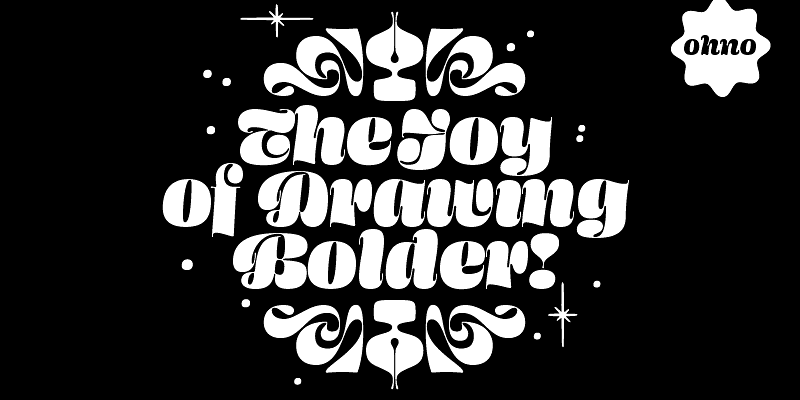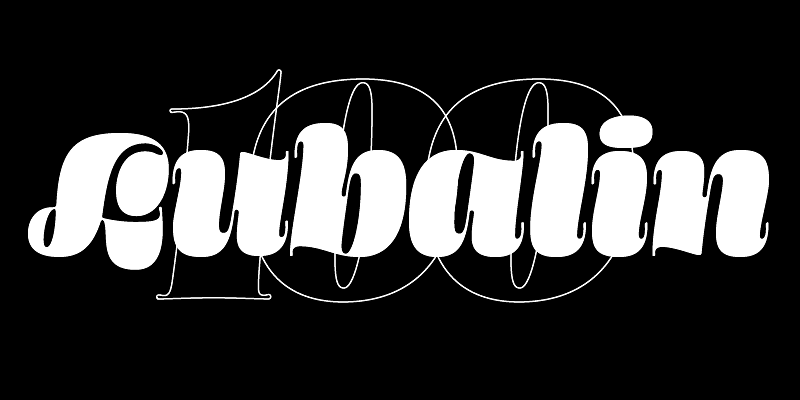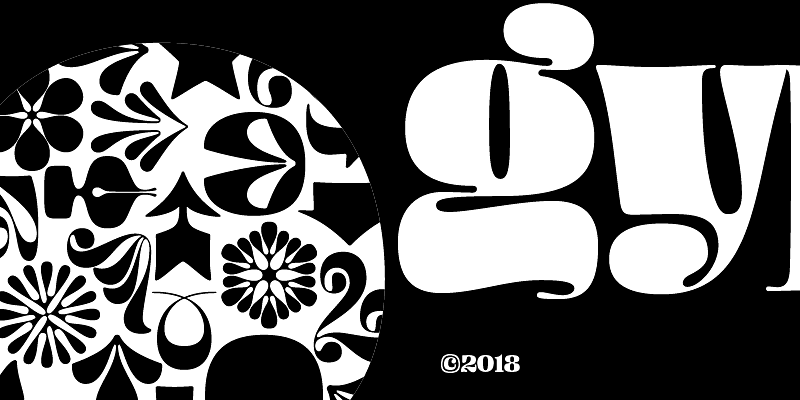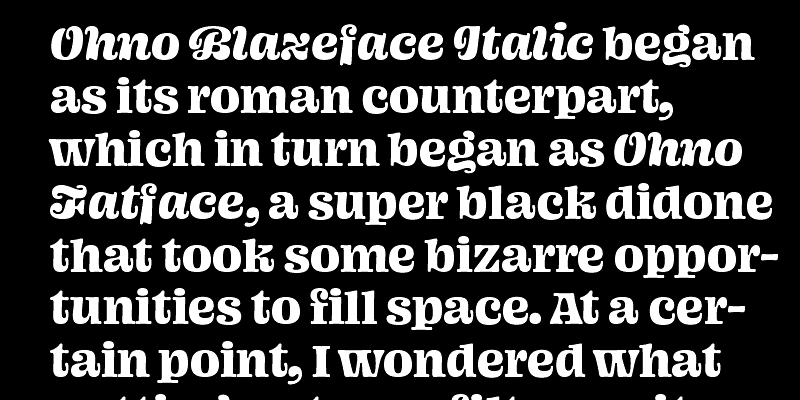
Ohno Blazeface is a real fat fatty of a display serif. Taking a look at the fatface genre, James was seeing mostly the same things over and over: an inability to treat problematic letters effectively, and a consistently traditional structure. He was convinced a fatface could be more chill, and so Ohno Blazeface was born. Ohno Blazeface comes in nine optical sizes so you can use it at many different scales.